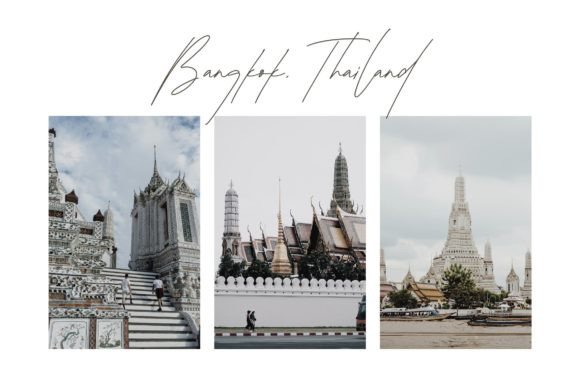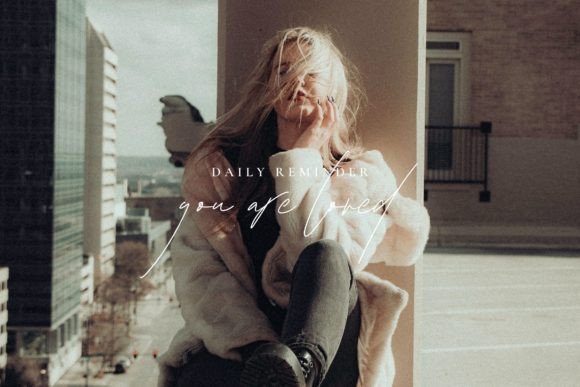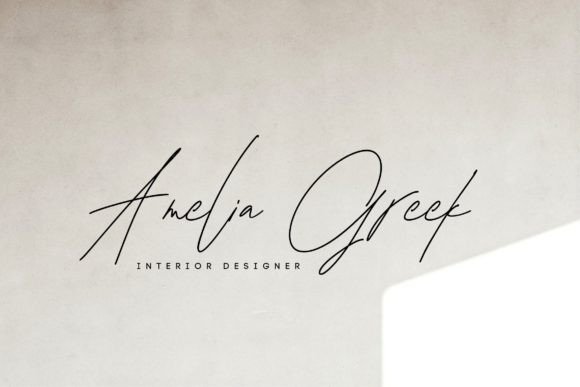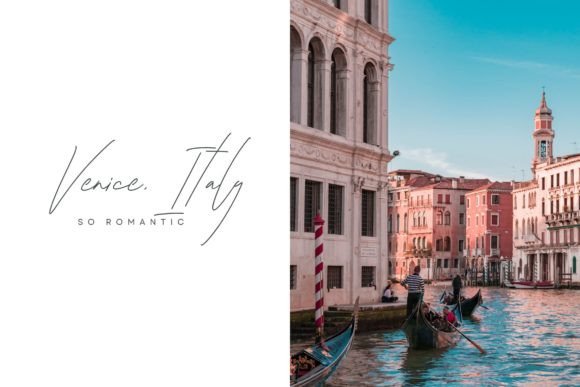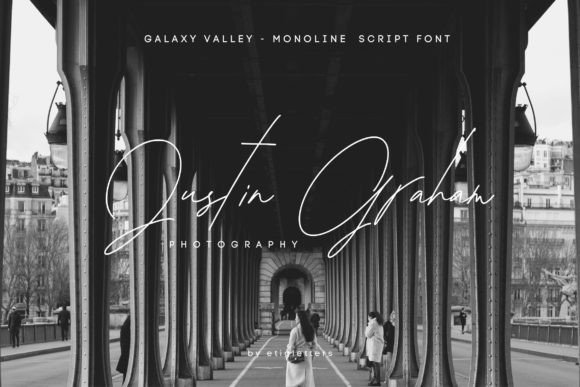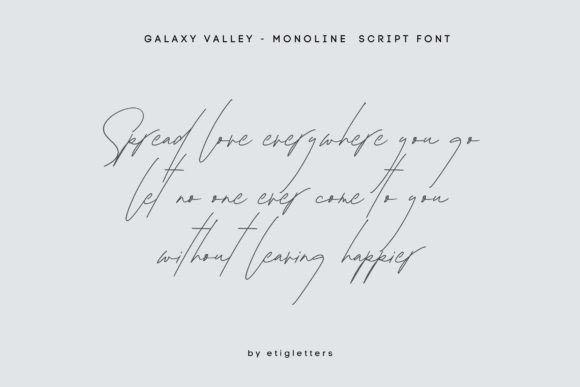
Introducing Galaxy Valley Font: Elevate Your Designs with Elegance
In the world of typography, a font can make or break the aesthetic of a design project. For designers and crafters seeking to infuse their creations with a touch of sophistication and timeless elegance, the Galaxy Valley Font is an exceptional choice. This beautiful script font is meticulously crafted to bring a contemporary atmosphere and impeccable form to your projects, inspired by the classic art of calligraphy.
The Essence of Galaxy Valley Font
Galaxy Valley is not just another script font; it’s a masterpiece that strikes the perfect balance between modernity and tradition. Its design is rooted in the principles of elegant calligraphy, yet it carries a contemporary vibe that makes it versatile for a wide range of applications. Whether you’re working on a branding project, a wedding invitation, a fashion blog, or any other creative endeavor, Galaxy Valley Font is poised to enhance the beauty and impact of your work.
Key Features of Galaxy Valley Font
- Balanced Stroke Width: One of the standout features of Galaxy Valley Font is its balanced stroke width. It’s neither too thin nor too thick, making it highly legible and visually appealing across different sizes and mediums.
- Varied Letterforms: The font boasts a range of letterforms that add a dynamic and organic feel to your text. This variation ensures that your designs never look monotonous or boring.
- Elegant and Versatile: With its elegant appearance, Galaxy Valley Font can effortlessly adapt to various design needs. From luxury brands to personal blogs, this font can elevate the visual appeal of your content.
- Contemporary yet Timeless: While the font has a contemporary atmosphere, it’s also designed to stand the test of time. Its classic undertones ensure that your designs remain relevant for years to come.
Applications of Galaxy Valley Font
The versatility of Galaxy Valley Font makes it suitable for a multitude of design projects. Here are some of the areas where this font truly shines:
- Branding and Logotypes: Create a lasting impression with a logo or brand name that exudes elegance and sophistication.
- Wedding and Event Invitations: Add a touch of luxury and romance to your invitations, making the occasion even more special.
- Fashion and Beauty: Perfect for fashion blogs, beauty product branding, and editorials that demand a high-end look.
- Packaging and Product Design: Elevate your product design with a font that communicates luxury and quality.
Why Choose Galaxy Valley Font?
In a sea of fonts, Galaxy Valley stands out for its unique blend of elegance, versatility, and contemporary appeal. Here are a few reasons why designers and crafters are gravitating towards this beautiful script font:
- Unique Aesthetic: Its distinctive look can help your designs stand out in a crowded marketplace.
- High Readability: The balanced and varied design ensures that your text is not only beautiful but also easy to read.
Galaxy Valley Font is more than just a typeface; it’s a design companion that can help you create stunning, professional-grade projects. Its elegant script, balanced stroke widths, and versatile nature make it an invaluable asset for designers and crafters looking to add a touch of sophistication to their work. Whether you’re aiming to create timeless pieces or contemporary designs, Galaxy Valley Font is an excellent choice that can elevate your projects to new heights of aesthetic excellence.